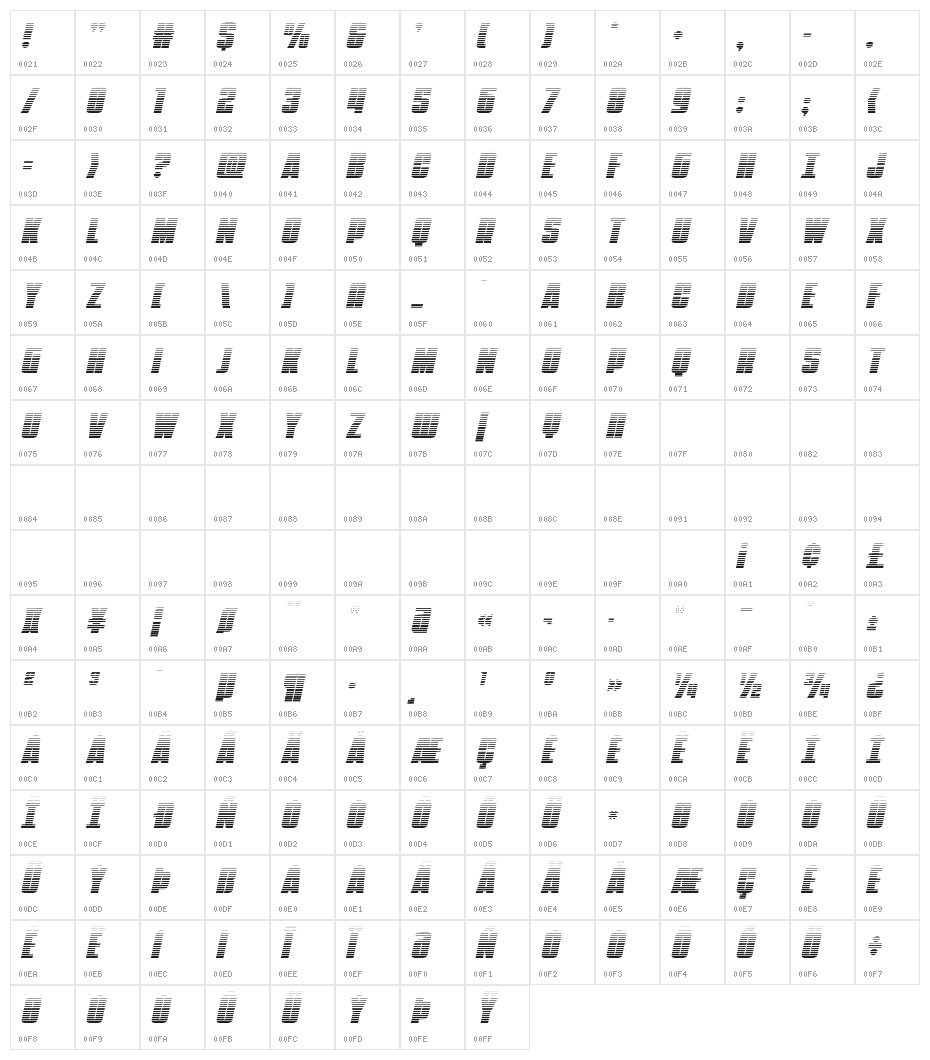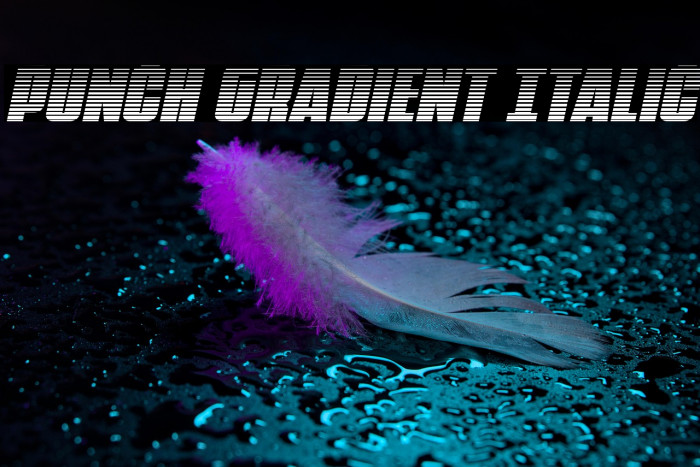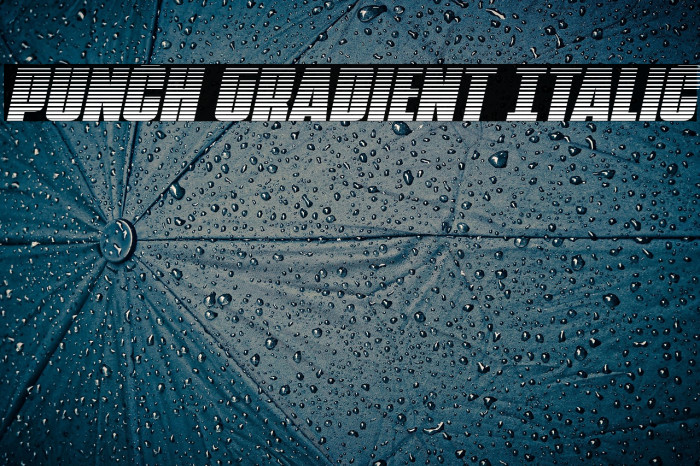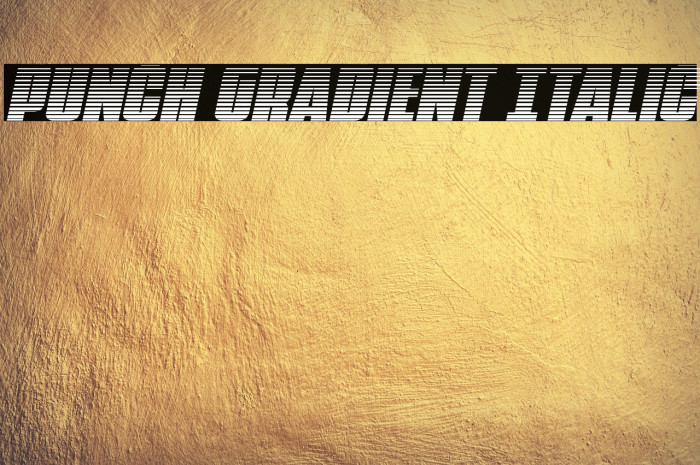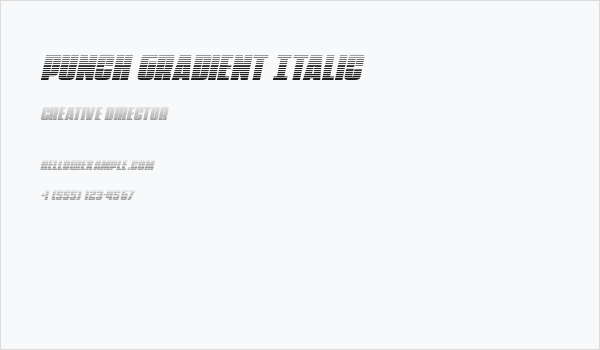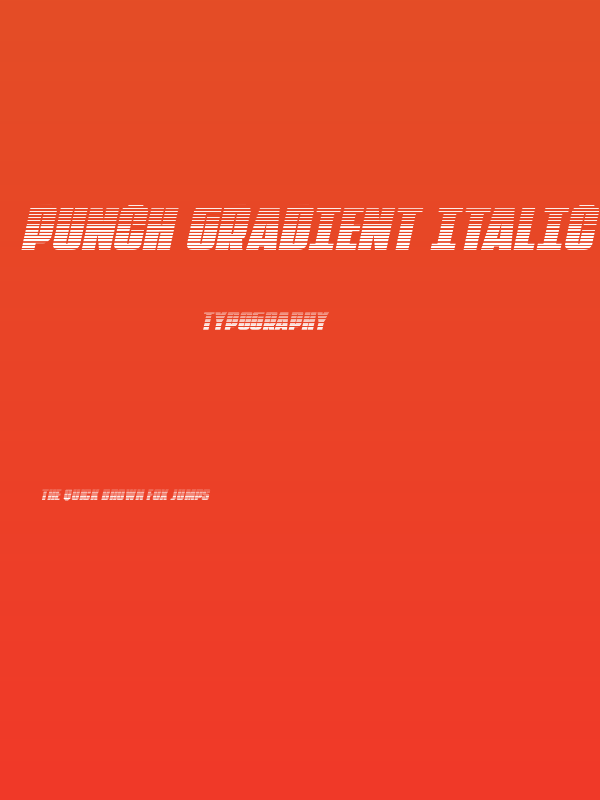
Punch Gradient Italic Font
Punch Gradient Italic Description
This font features a bold, italicized style with a distinctive gradient effect that gives each character a dynamic, three-dimensional appearance. The uppercase and lowercase letters, along with numbers and special characters, are designed with a series of horizontal lines that create a sense of movement and depth. The font's unique design makes it stand out, offering a modern and edgy look. The italic slant adds a sense of speed and urgency, making it suitable for attention-grabbing headlines and creative projects. The gradient effect is consistent across all characters, enhancing the overall visual impact.
| Proposed Projects | Ideal for sports branding, dynamic posters, modern advertising, and edgy graphic design projects. |